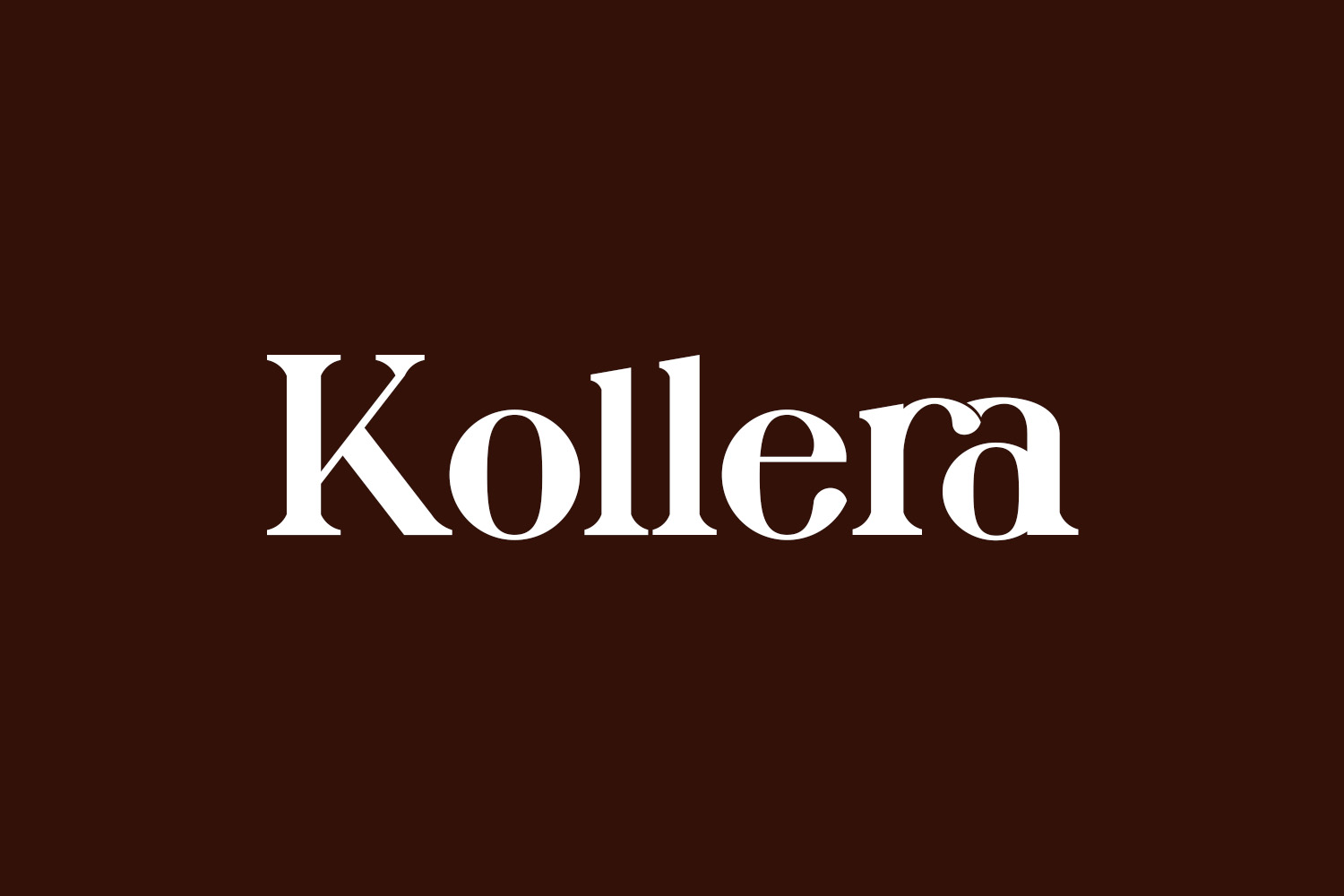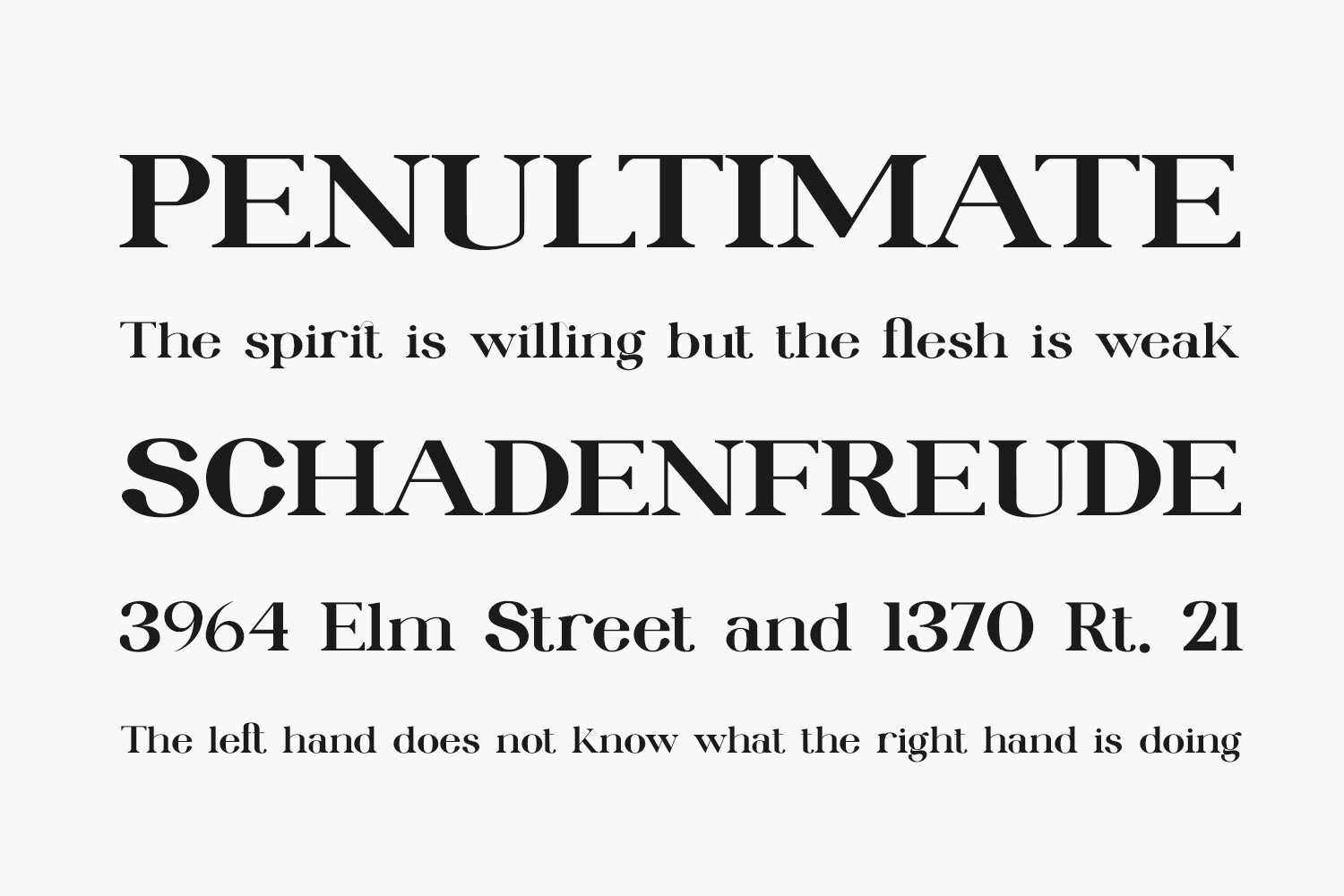
Introducing Kollera Free Font, a sophisticated and refined serif font that strikes the perfect balance between modernity and nostalgia. This versatile typeface is ideal for logos, magazines, social media, branding, luxury invitations, and a myriad of other creative concepts. Kollera Free Font is free for personal use only. Please purchase the full version for commercial use.
Designed by Alfin Ridhowi